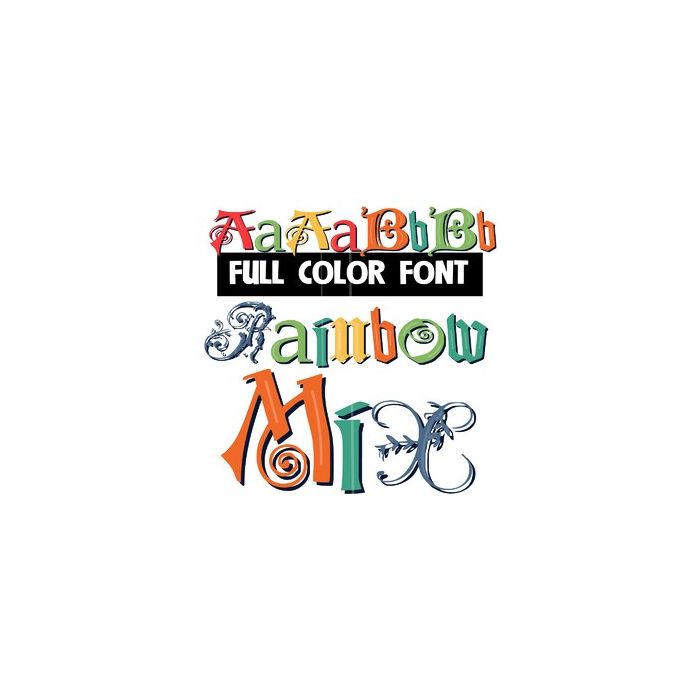
This full-color font features a mix of lettering styles and rainbow coloring. You can access another version of the letters by using the alt characters in Silhouette's glyph map.